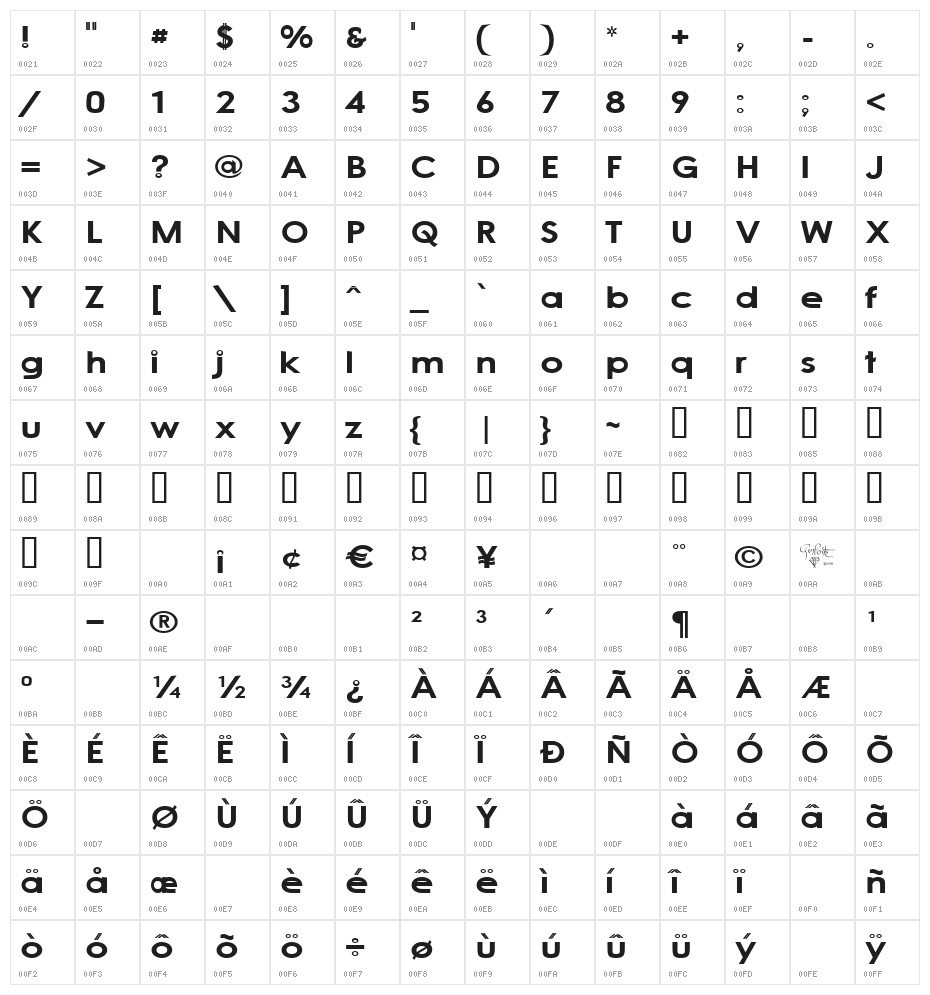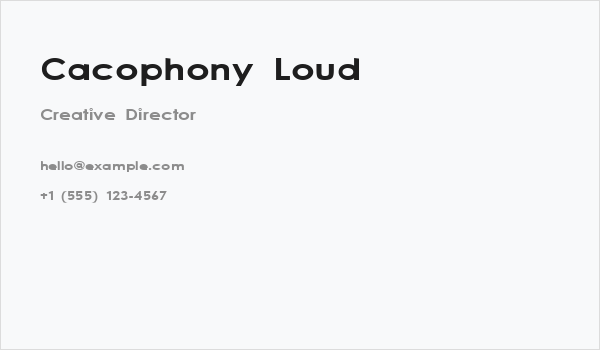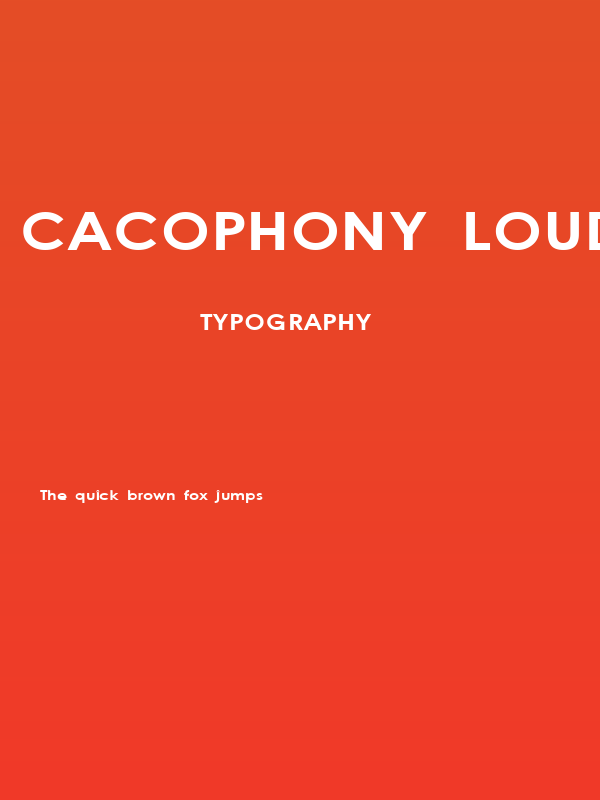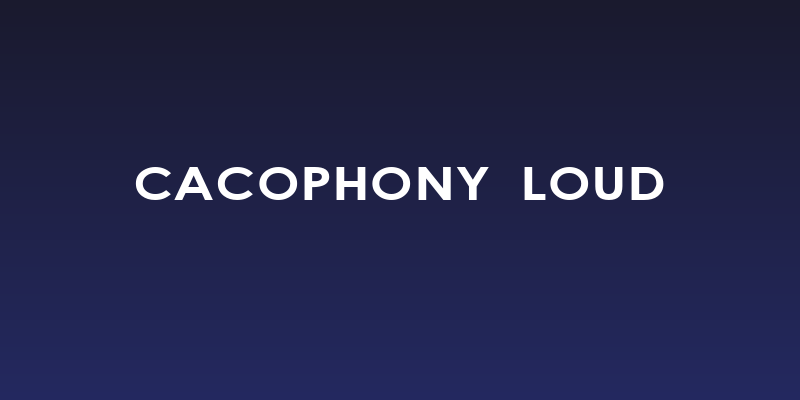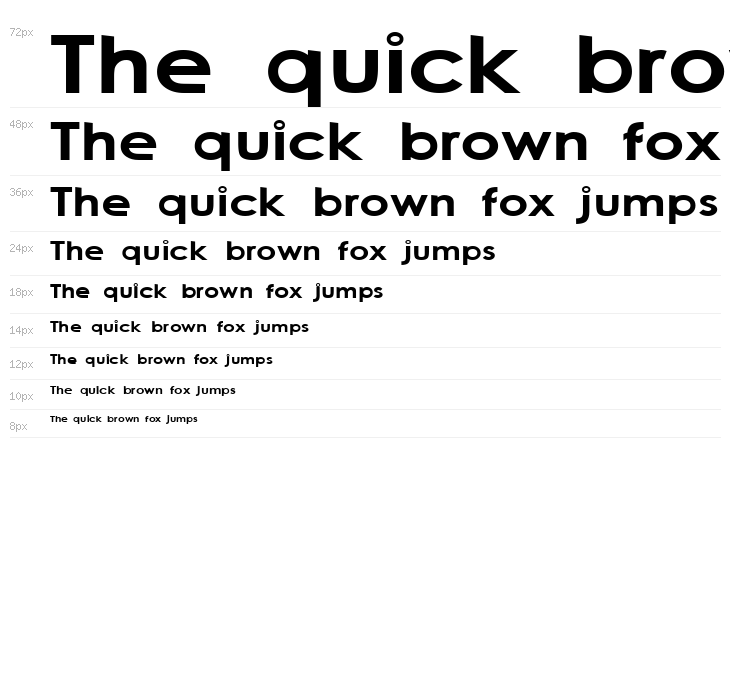
Cacophony Loud Font
Cacophony Loud Description
This font features a bold and modern design with clean, geometric shapes. The uppercase letters are uniform in height, providing a strong and cohesive appearance. The lowercase letters maintain a consistent style, with rounded edges that add a touch of softness to the overall boldness. Numbers are clear and easy to read, matching the style of the letters. The special characters are well-integrated, maintaining the font's modern aesthetic. This font is highly legible and versatile, suitable for a variety of design needs.